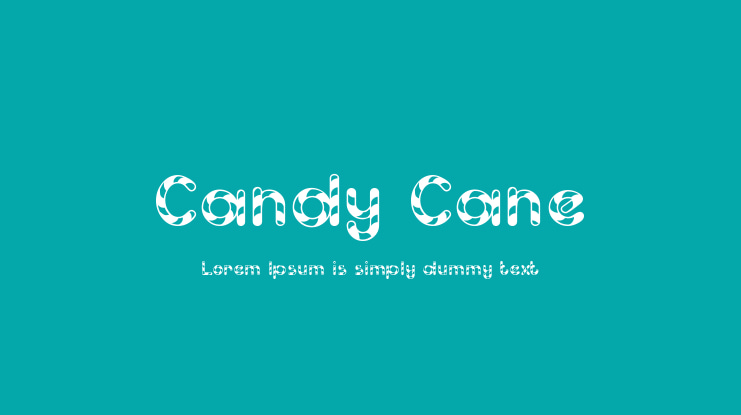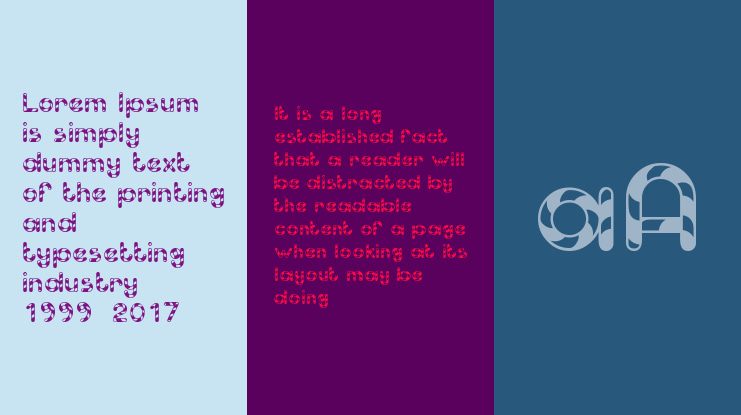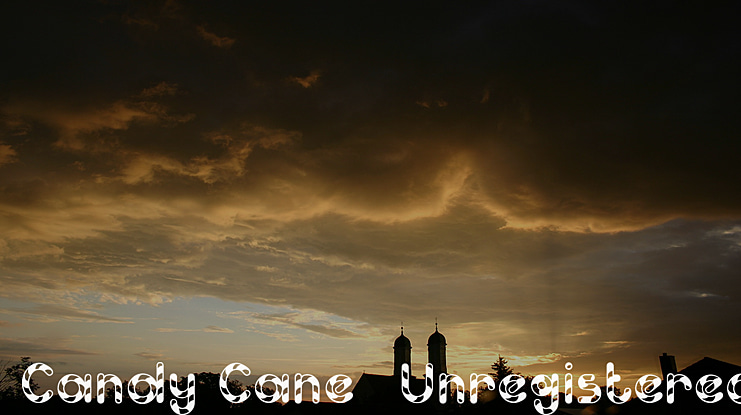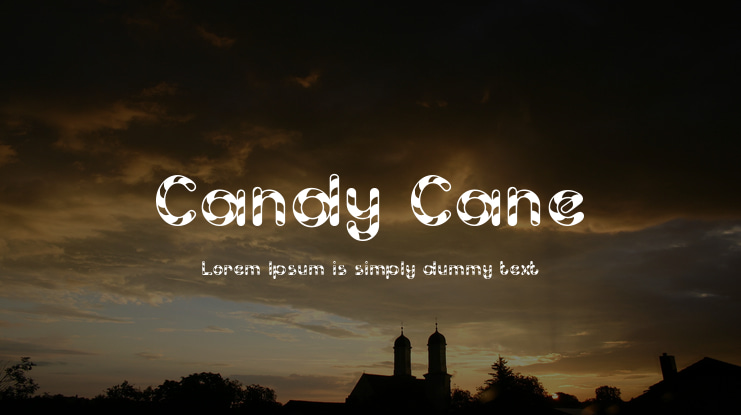
Candy Cane Font
Do you remember the very first time you saw candy cane hanging on a Christmas tree branch ? Can you recall the minty taste, sometimes with slight favor of cinnamon ? Can you evoke in your mind the scent of the tree filling up the room ? Well, if you do, you can appreciate this font, and use it to bring those memories to print.